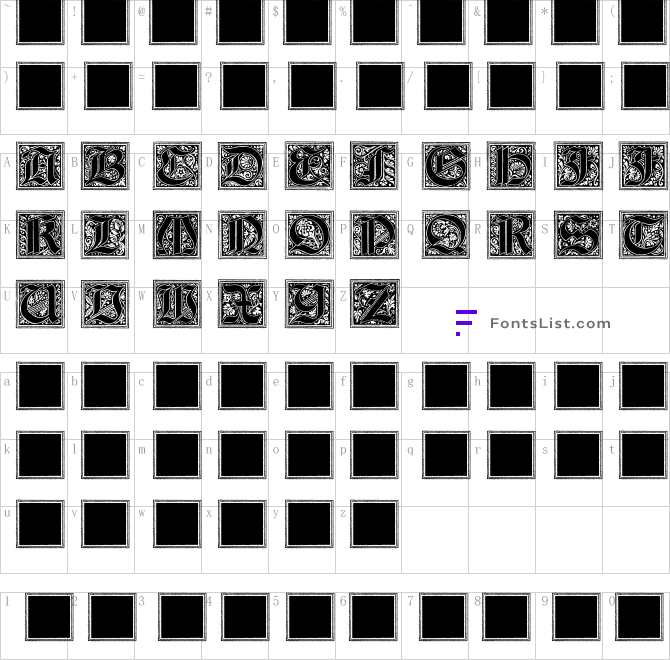
Camelot_Initials.ttf is a very beautiful artistic font, Camelot_Initials.ttf is widely used in the design and printing of various books and pictures,Camelot_Initials.ttf has a strong visual impact,Camelot_Initials.ttf is a commonly used font in newspapers, magazines and books, and is used in posters, e-commerce Poster design, store design, logo design, font design and other fields.Camelot_Initials.